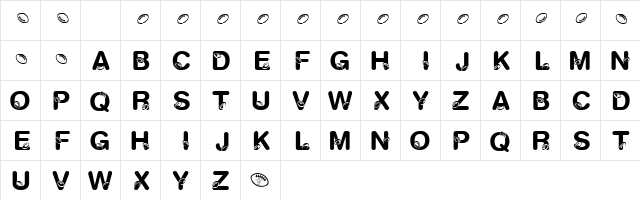
KR Football Fun Regular
Design Context for KR Football Fun Typeface
KR Football Fun has an approachable, lighthearted character — its loose, expressive forms are well-suited to children's content, casual branding, and fun-first design.
Font Pairing: Pairs well with a rounded or humanist sans for body copy, maintaining the friendly tone without relying on KR Football Fun to carry extended reading.
Pro Tip: Avoid using KR Football Fun for long passages of text — it works best for headlines, labels, and short calls to action.